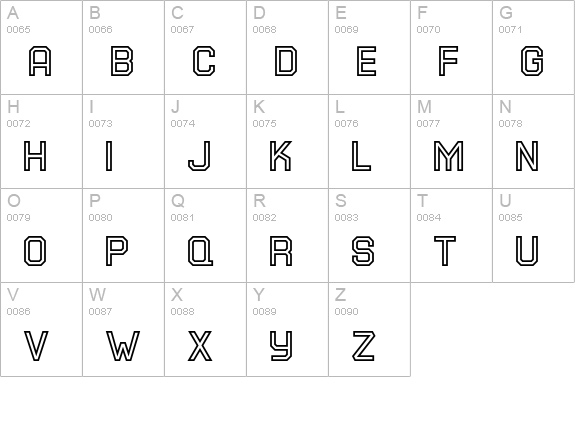
Square40Inline-Regular Font Details
Square40Inline-Regular is the standard, neutral variant in the Square40Inline typeface family \xE2\x80\x94 well suited to general body text, paragraphs, and standard typographic work.
Square40Inline-Regular is a versatile and modern font that adds a touch of sophistication to any design project. With its clean lines and sharp edges, this font is perfect for creating eye-catching headlines, logos, and branding materials. The square-shaped characters give it a unique and contemporary look, making it ideal for both digital and print applications. This font is available in a regular weight, which offers a balanced and harmonious appearance. Its legibility ensures that your message will be conveyed clearly and effectively. Whether you're designing a website, a poster, or a business card, Square40Inline-Regular will make your text stand out and grab attention. One of the best things about Square40Inline-Regular is that it is available for free download at FontsMarket.com. This means that you can use this font in your personal and commercial projects without any restrictions. Whether you're a professional designer or a hobbyist, having access to high-quality fonts like Square40Inline-Regular can make a significant difference in the final outcome of your work. So why wait? Enhance your designs with the sleek and modern aesthetic of Square40Inline-Regular. Download it for free at FontsMarket.com and let your creativity shine.